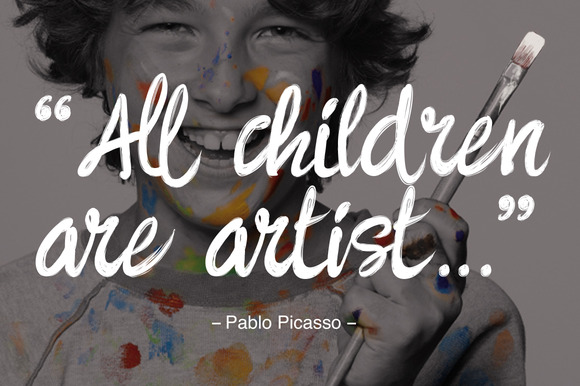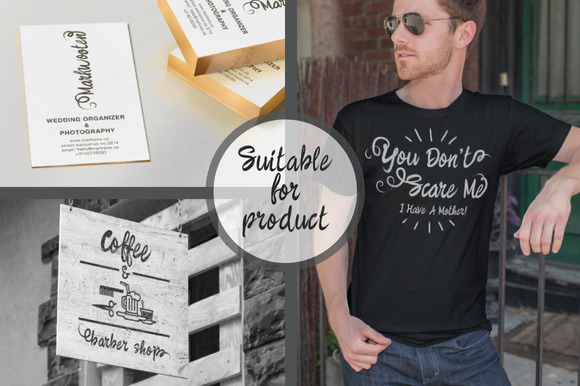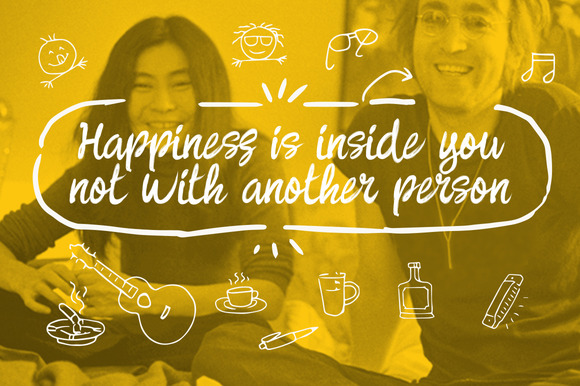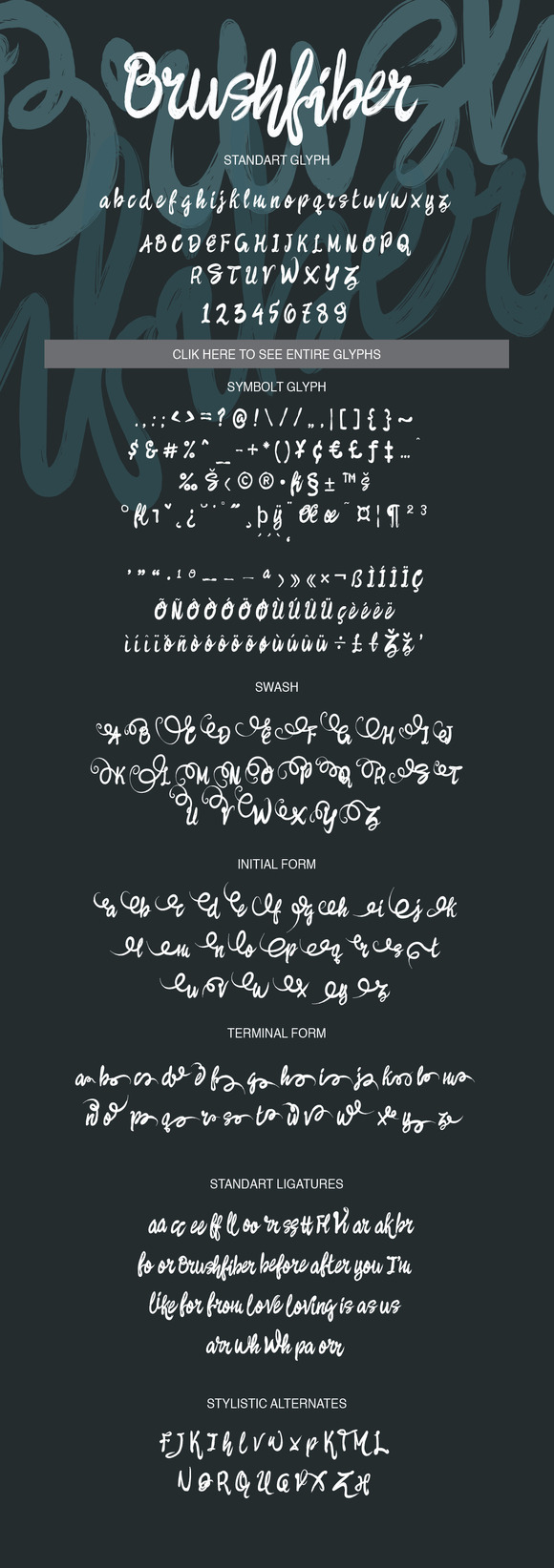
Brushfiber Typeface with Bonus
Brushfiber is a script that accentuates the hand brush fibers look very spontaneous, natural look. Great for designing posters, t-shirts, book covers, movie covers, clothing, cards, Billboards, store brand, etc. OpenType feature gives you more alternatives in the design.
• Basic Latin A-Z and a-z
• Number
• Symbol
• Multiple language support